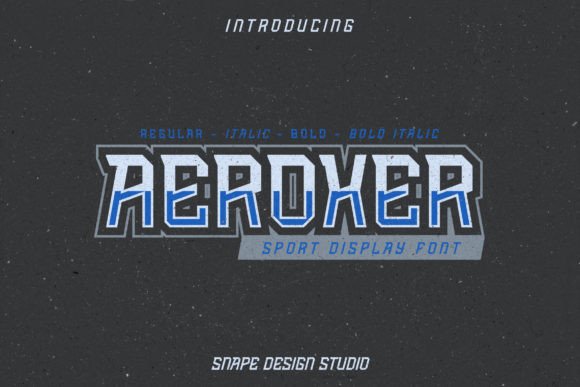
**Introducing Aeroxer: The Ultimate Font for Game Logos**
Embark on a thrilling typographic adventure with Aeroxer, the display typeface that will ignite your game logo designs with unparalleled dynamism and energy. Crafted by the visionary minds at snapedsgn, Aeroxer is not just a font; it's a weapon in your arsenal of creativity, empowering you to conquer the digital realm.
Whether you're designing logos for adrenaline-pumping racing games, epic fantasy adventures, or immersive simulations, Aeroxer is your steadfast ally. Its bold and active strokes evoke a sense of unstoppable motion, perfectly capturing the exhilaration and intensity of gaming experiences. Unleash your inner champion and let Aeroxer propel your game logos to the next level of awesomeness.
With Aeroxer, you'll have the uncanny ability to:
* **Command Attention:** Its striking presence demands attention, ensuring your game logos leap off the screen and into the hearts of gamers.
* **Convey Energy:** Aeroxer's dynamic strokes exude an air of movement and excitement, mirroring the high-octane nature of gaming.
* **Inspire Epicness:** Its bold and assertive style evokes a sense of grandeur, perfectly suited for games that transport players to extraordinary worlds.
* **Establish Dominance:** Aeroxer empowers your logos to project an aura of superiority, making them instantly recognizable and unforgettable.